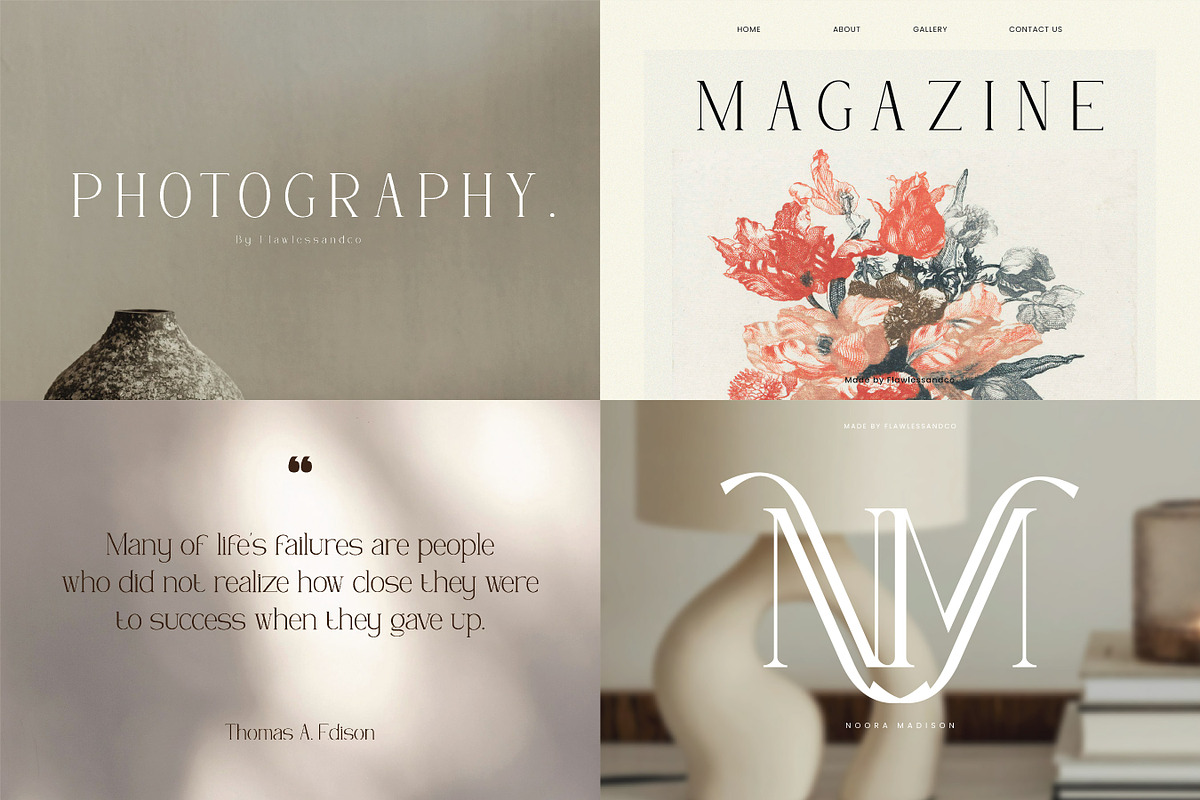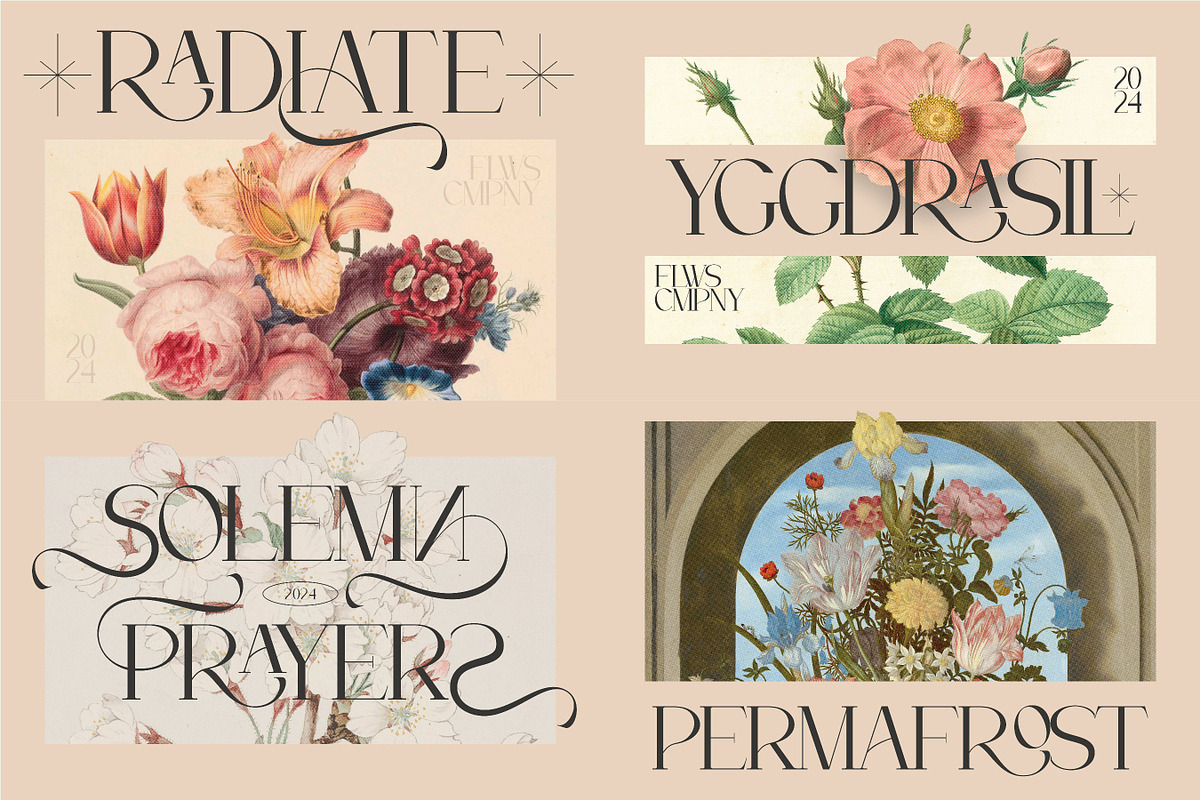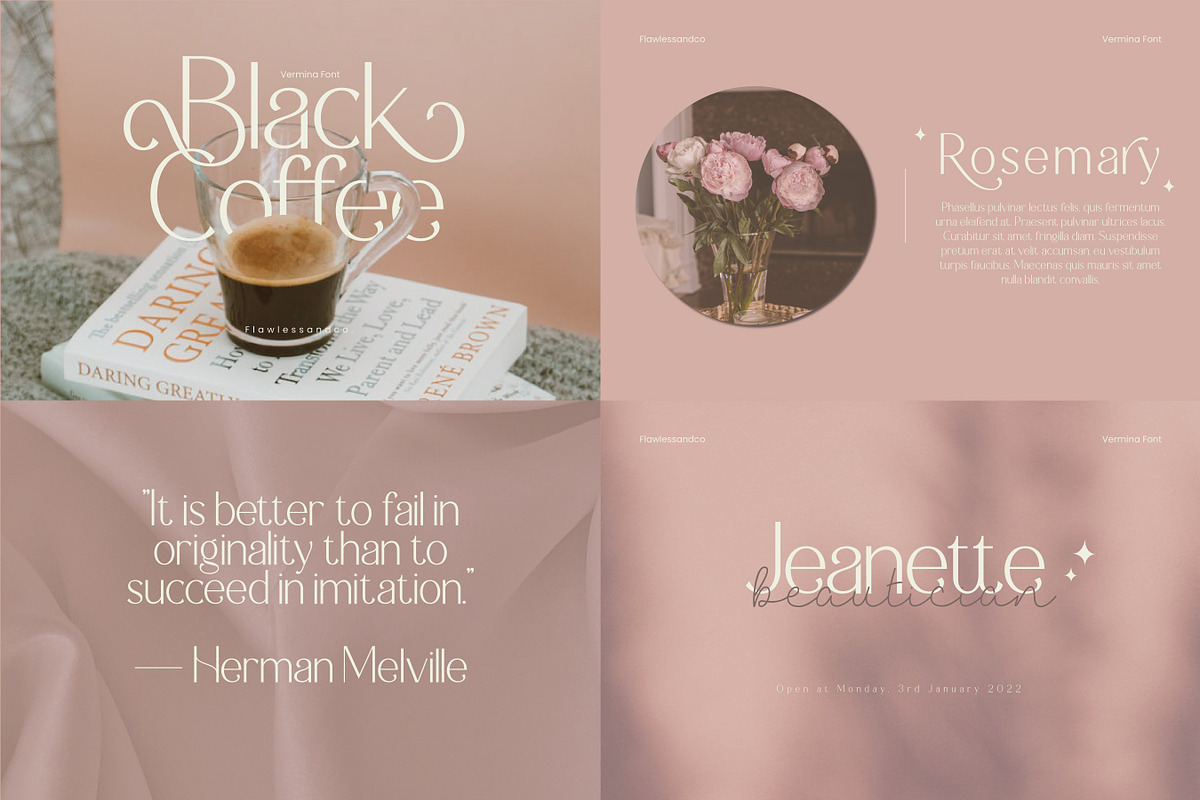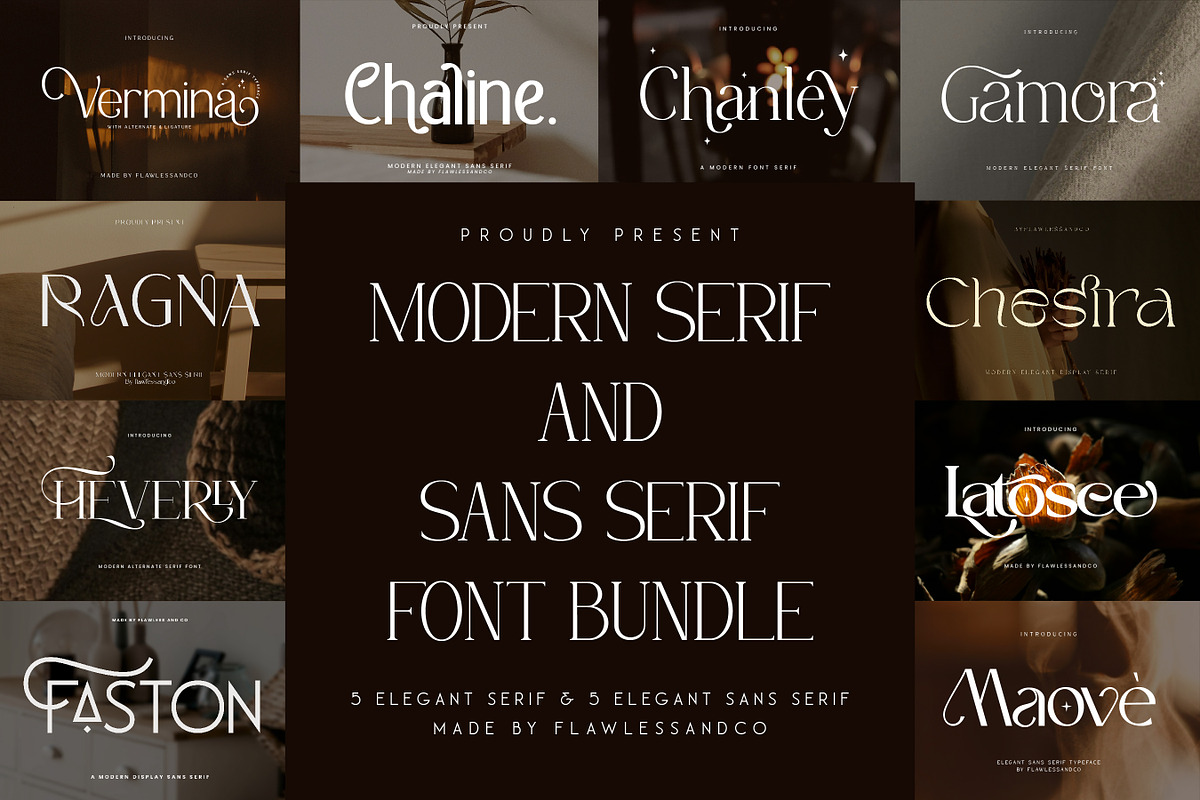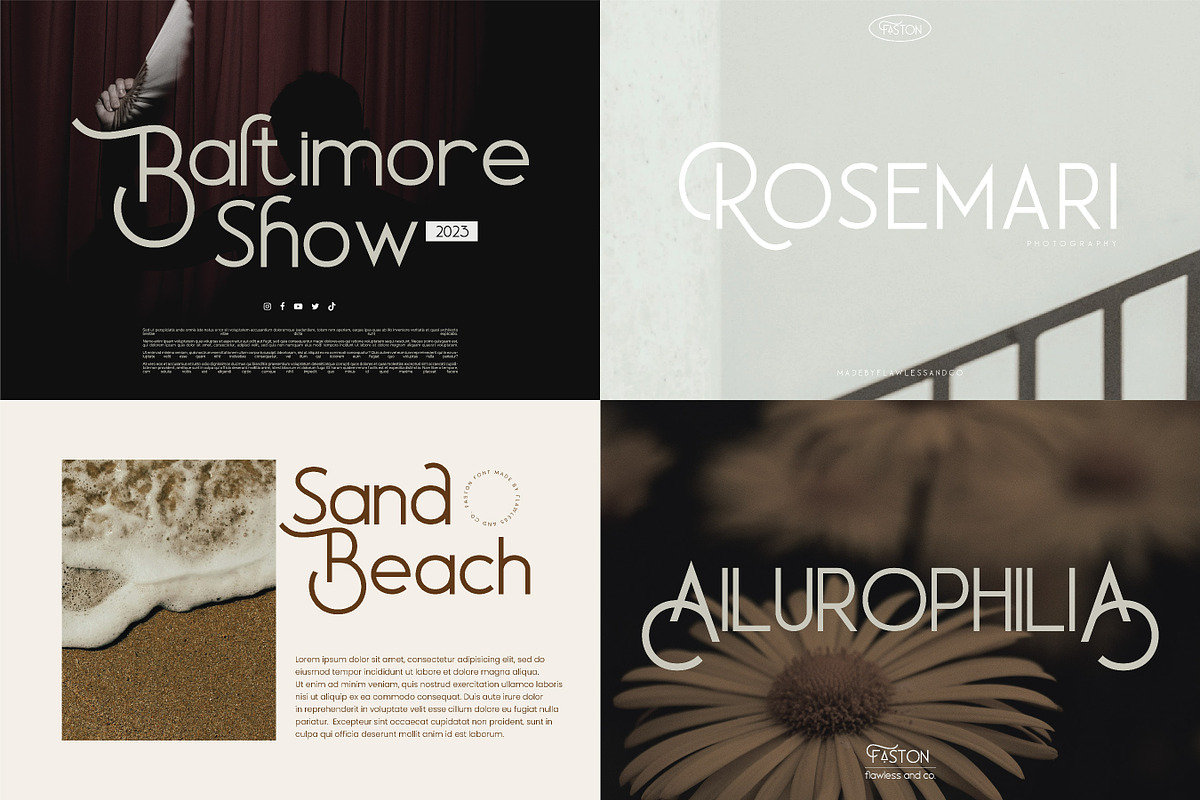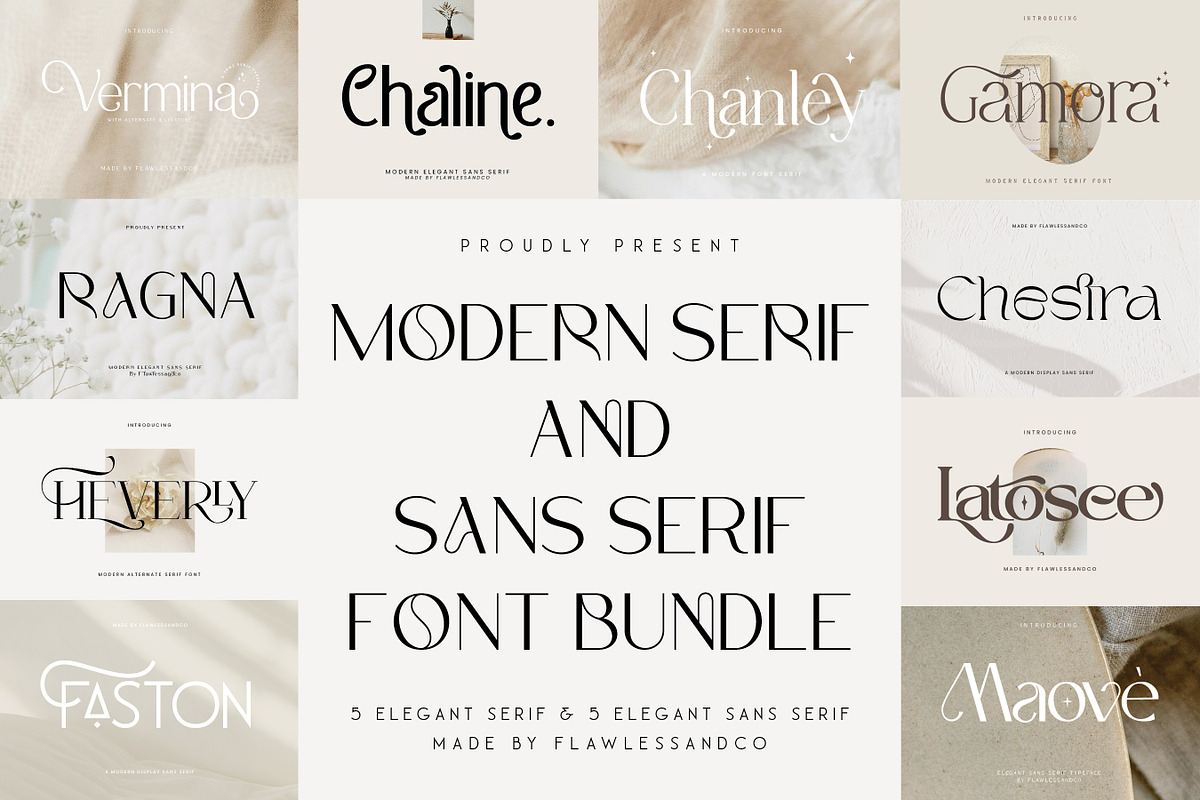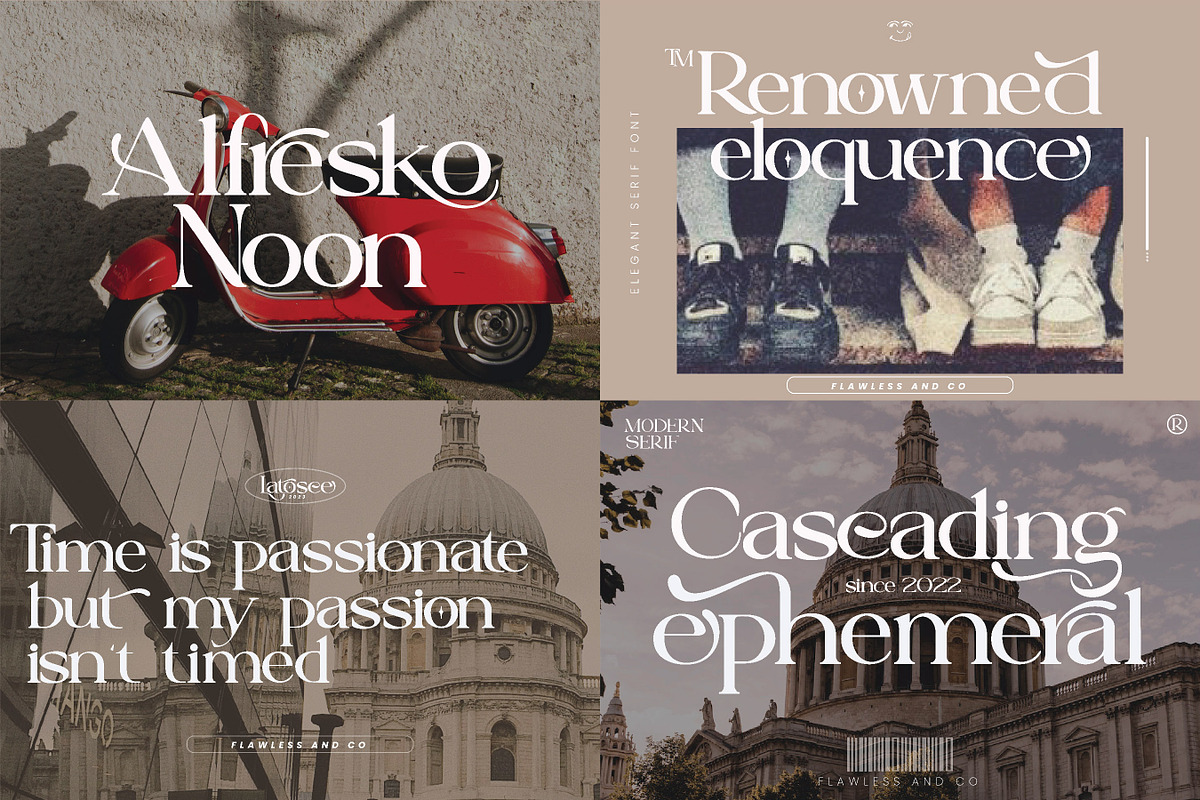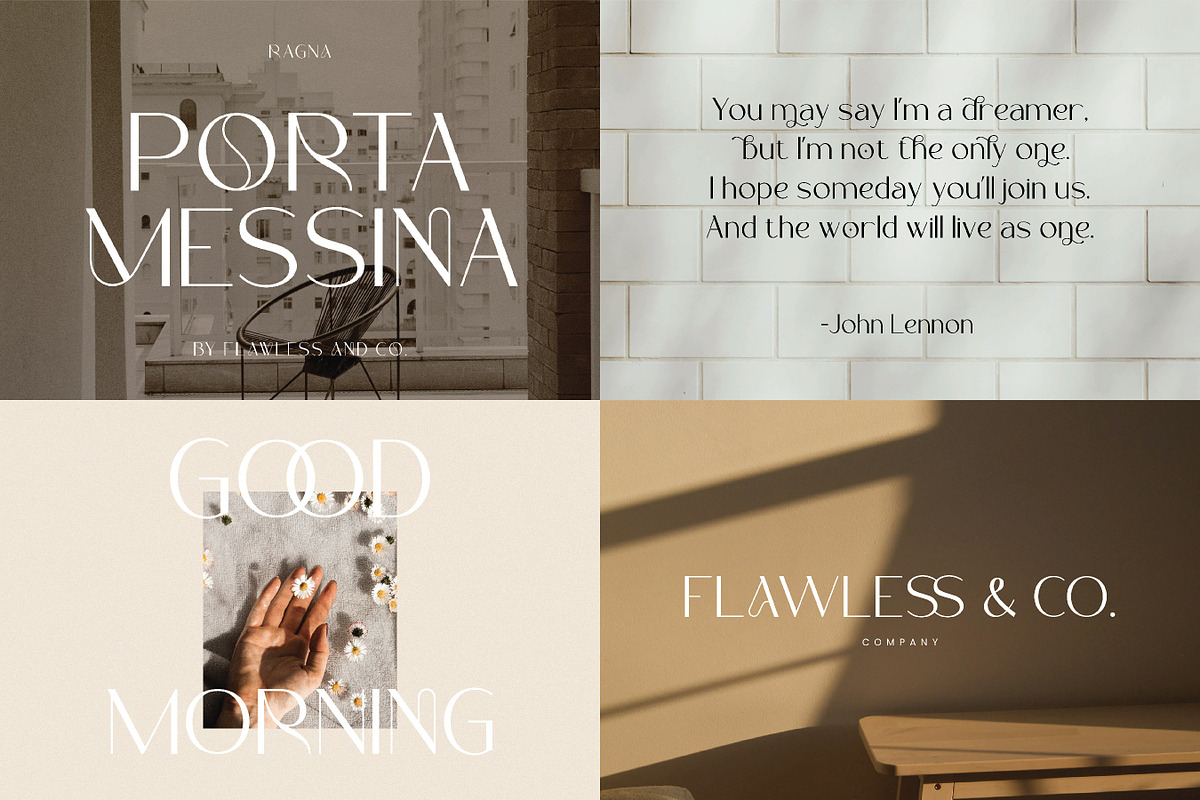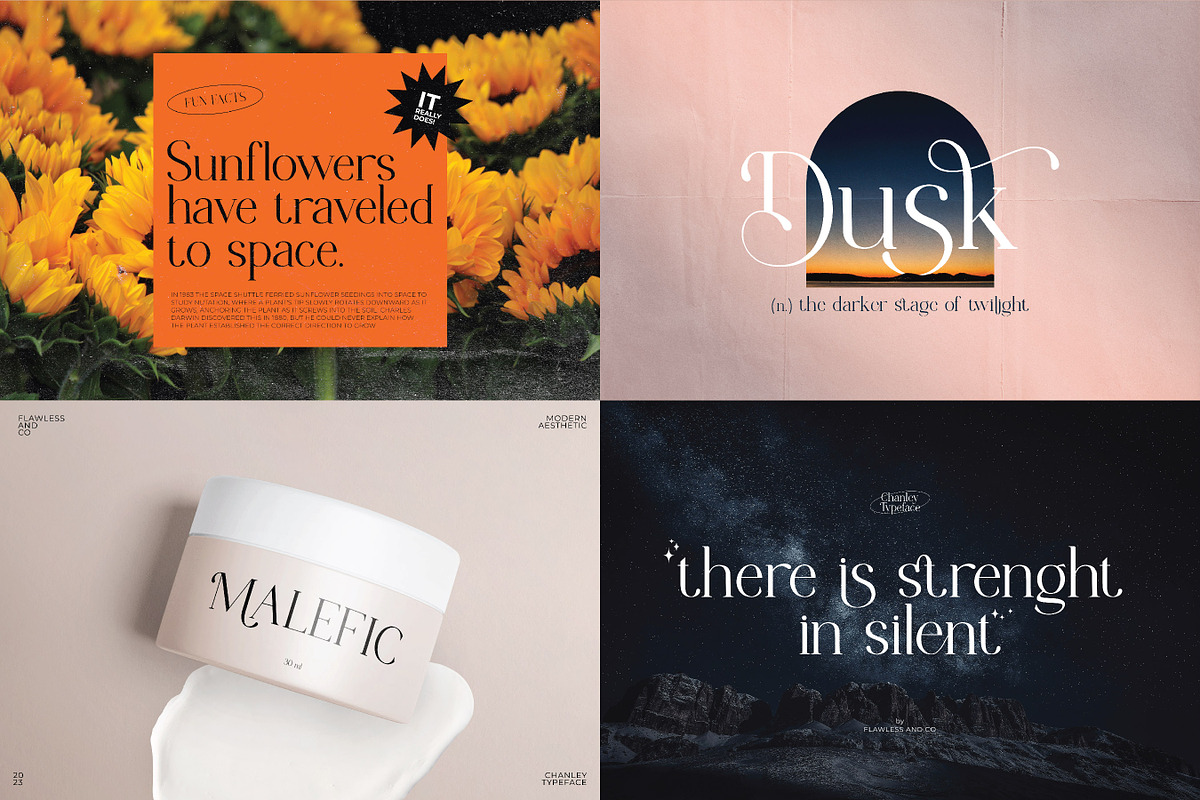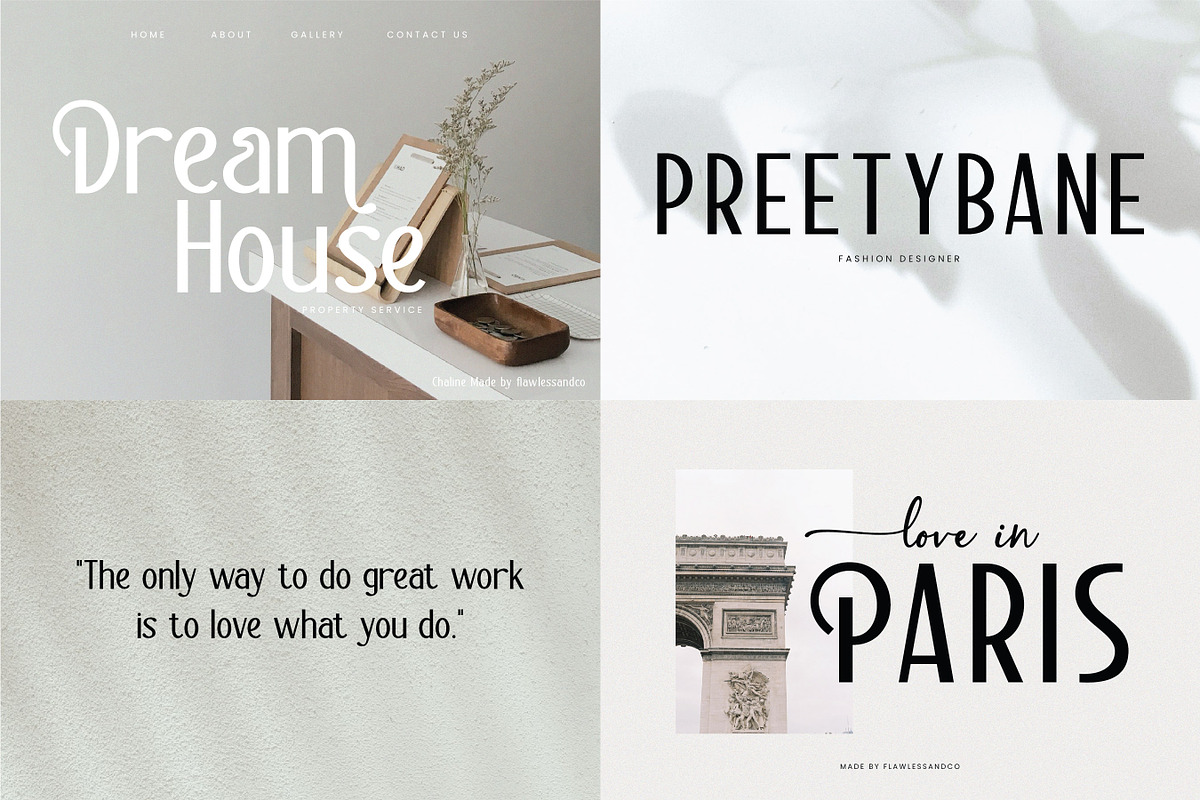
Modern Serif & Sans Serif Bundle
Introducing the "Modern Serif and Sans Serif Font Bundle," a meticulously curated collection of fonts that combines the timeless elegance of serifs with the clean sophistication of sans serifs. Perfect for any design project, this bundle offers a versatile range of styles to elevate your branding, editorial work, digital designs, and more.
- Vermina
- Chaline
- Chanley
- Gamora
- Ragna
- Heverly
- Chestra
- Latosce
- Faston
- Maove